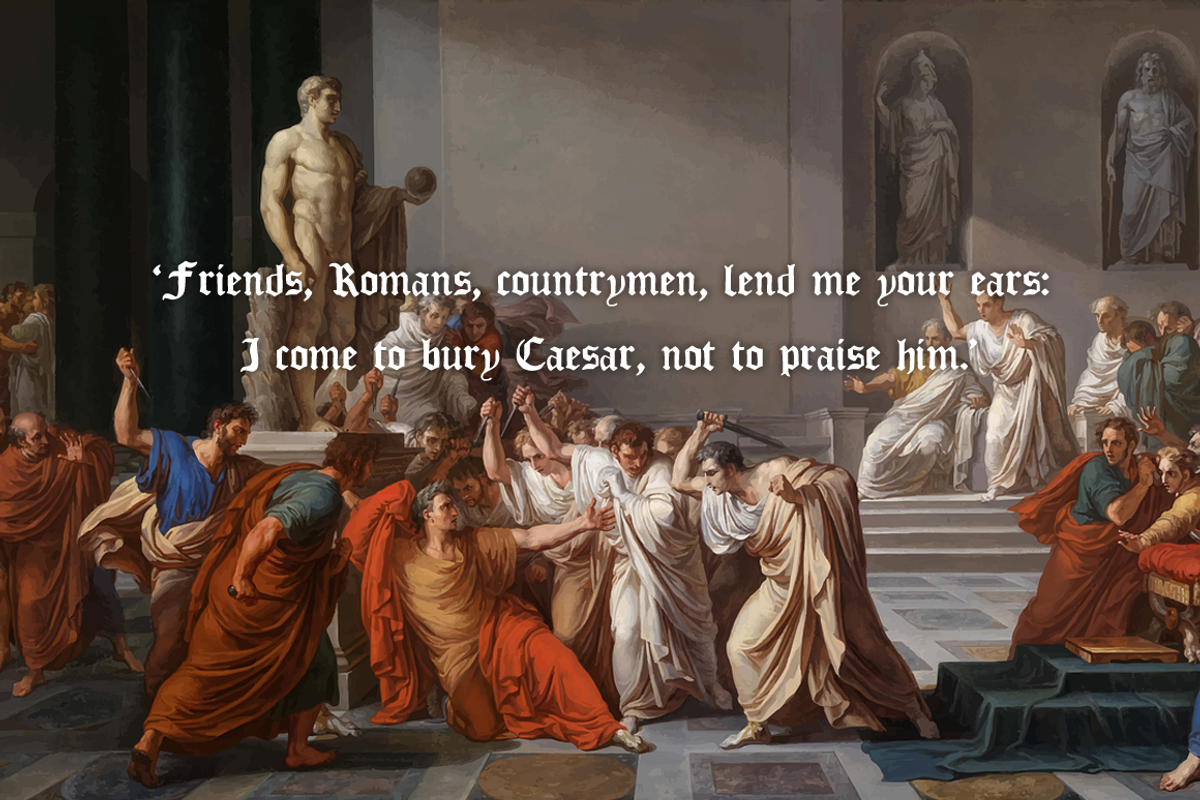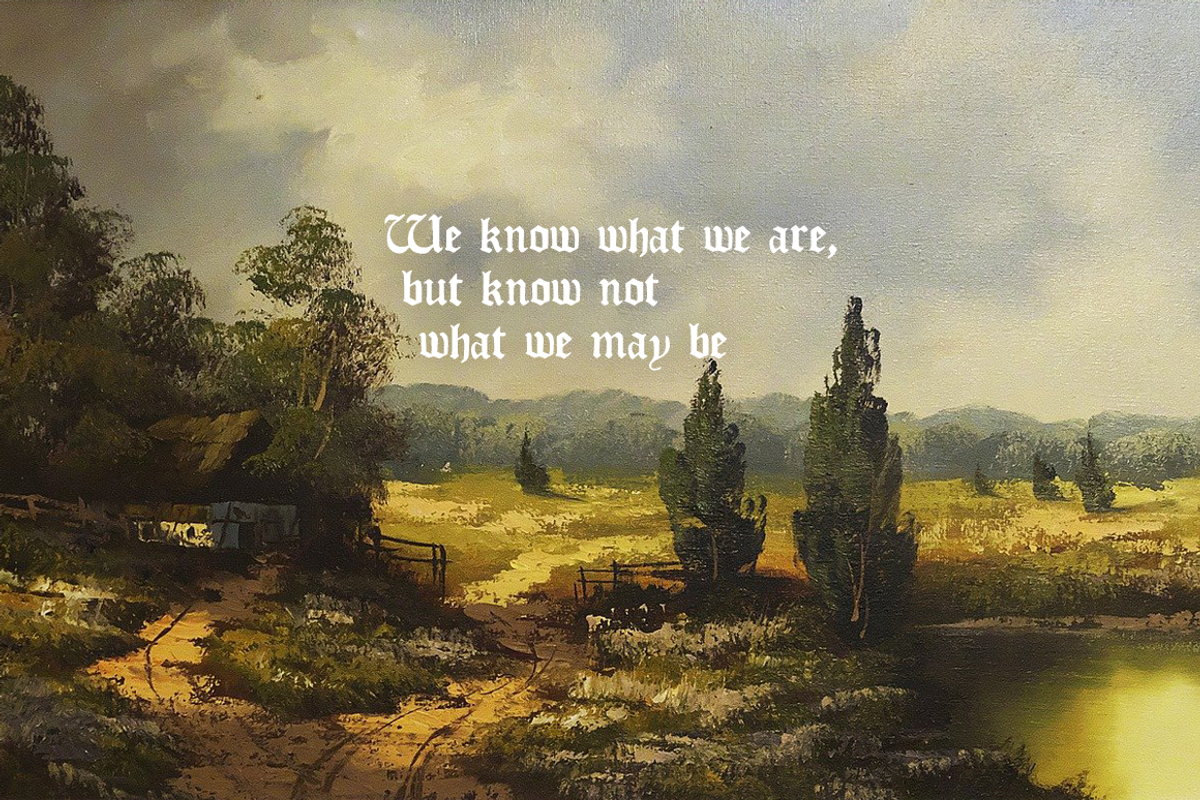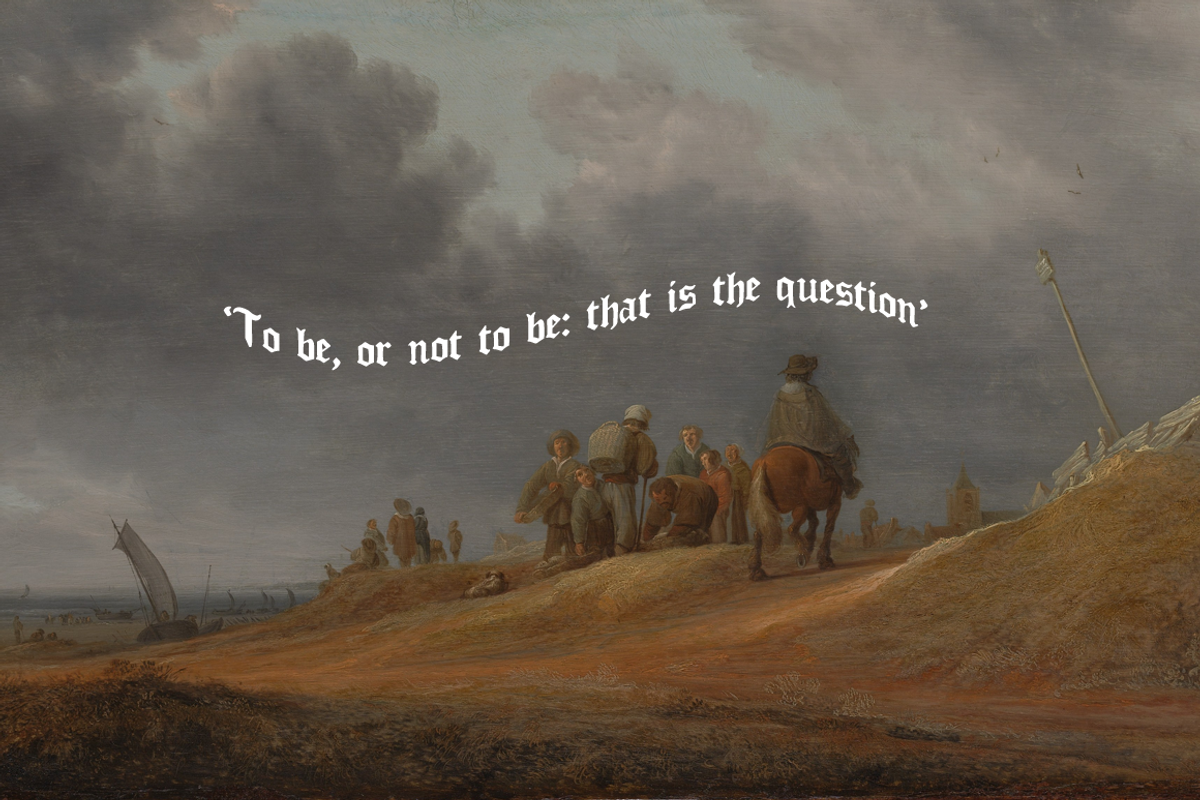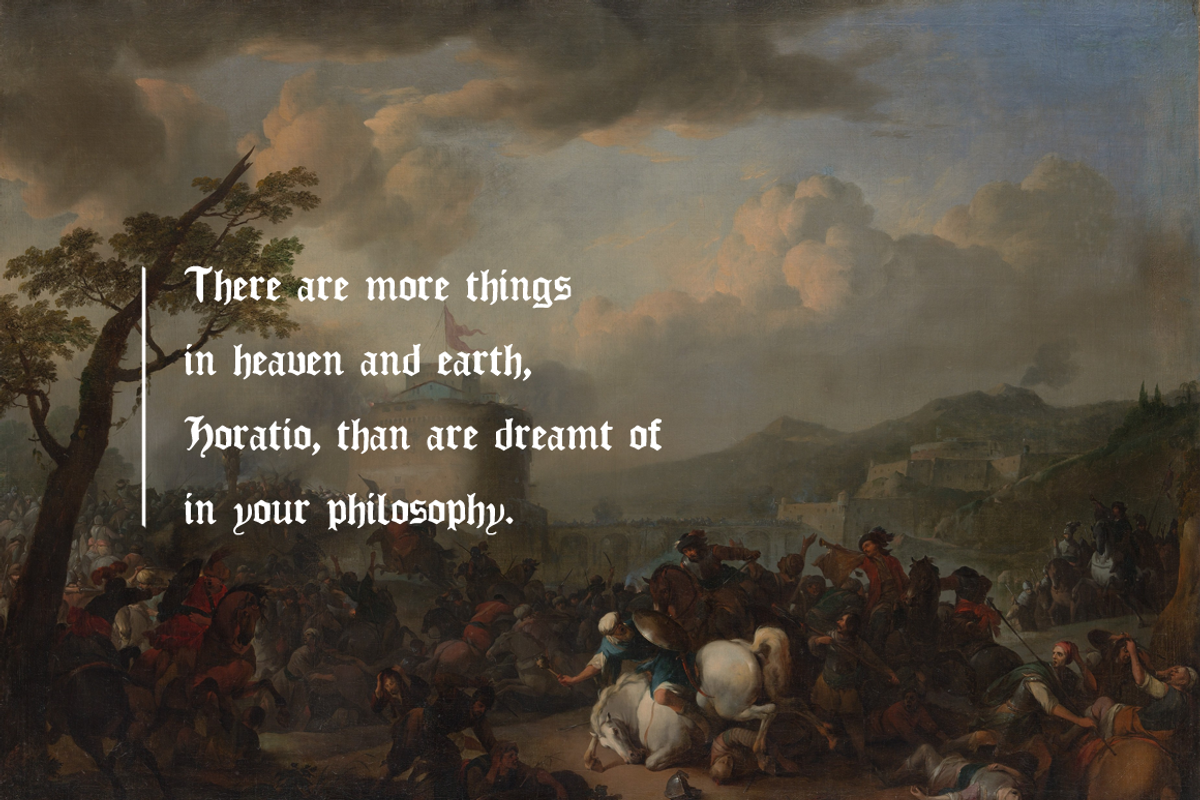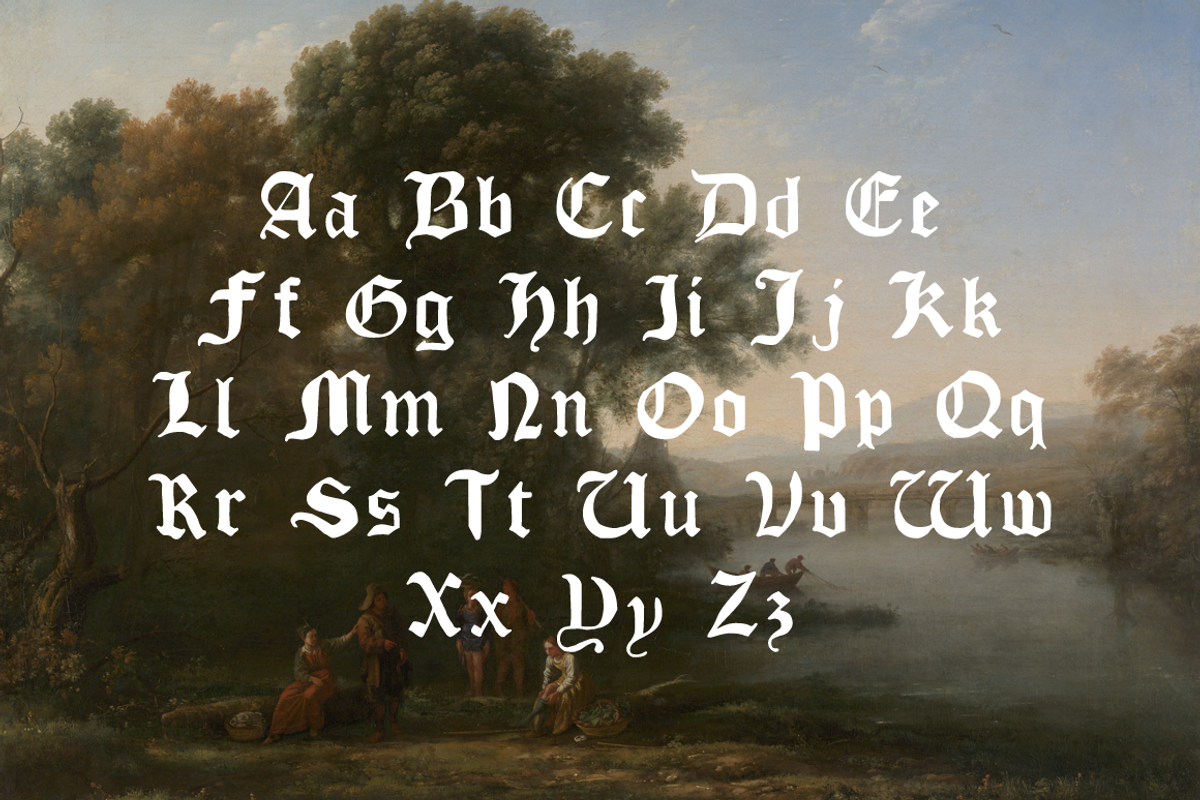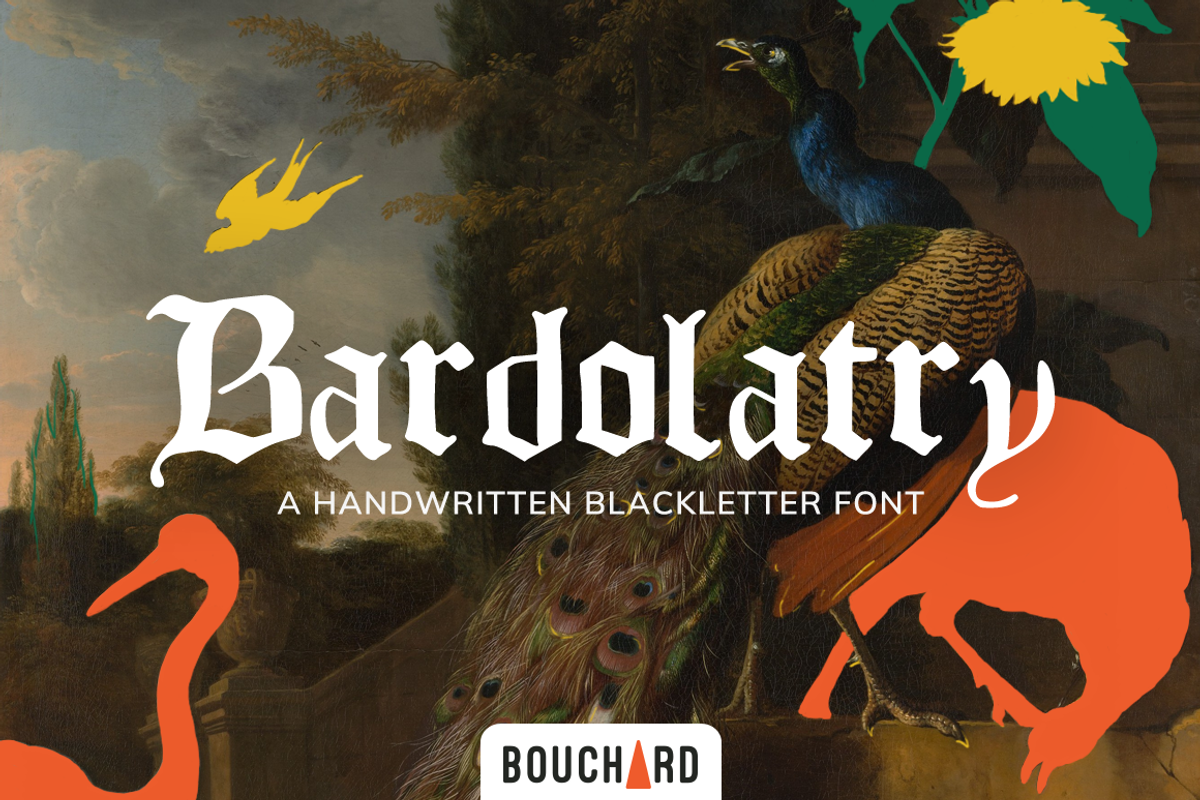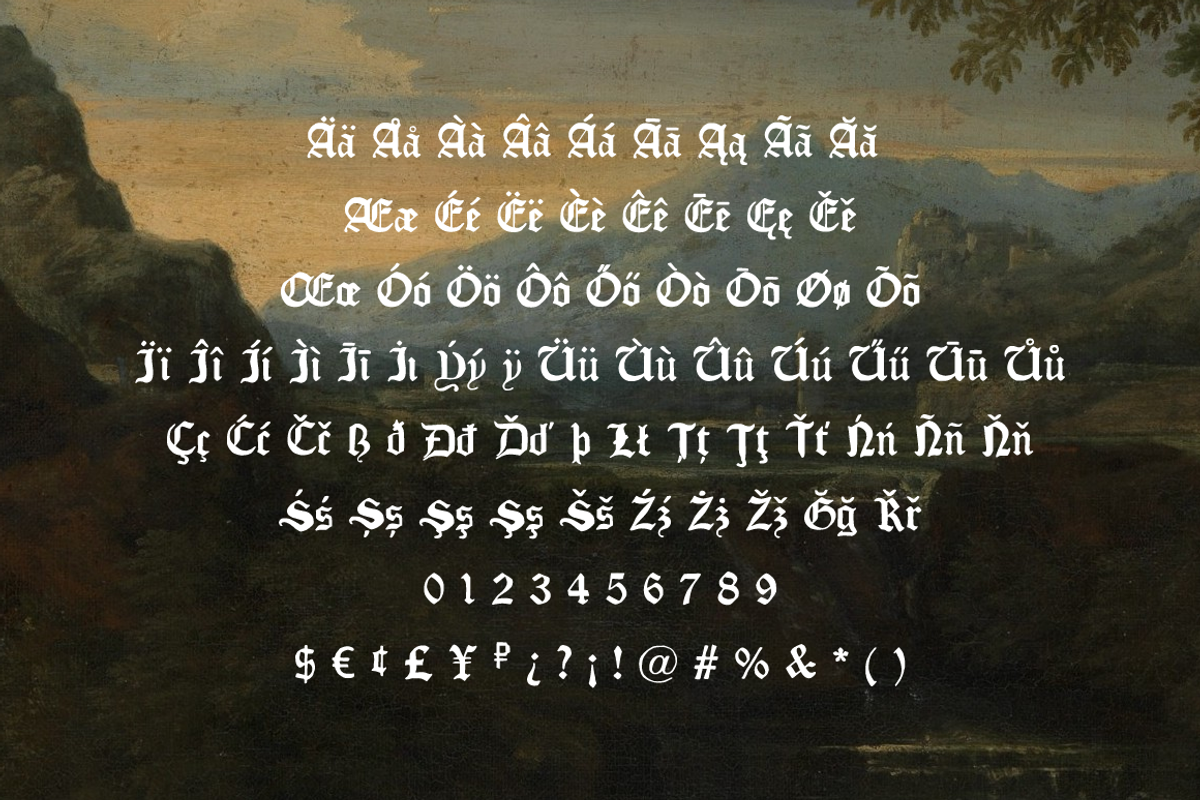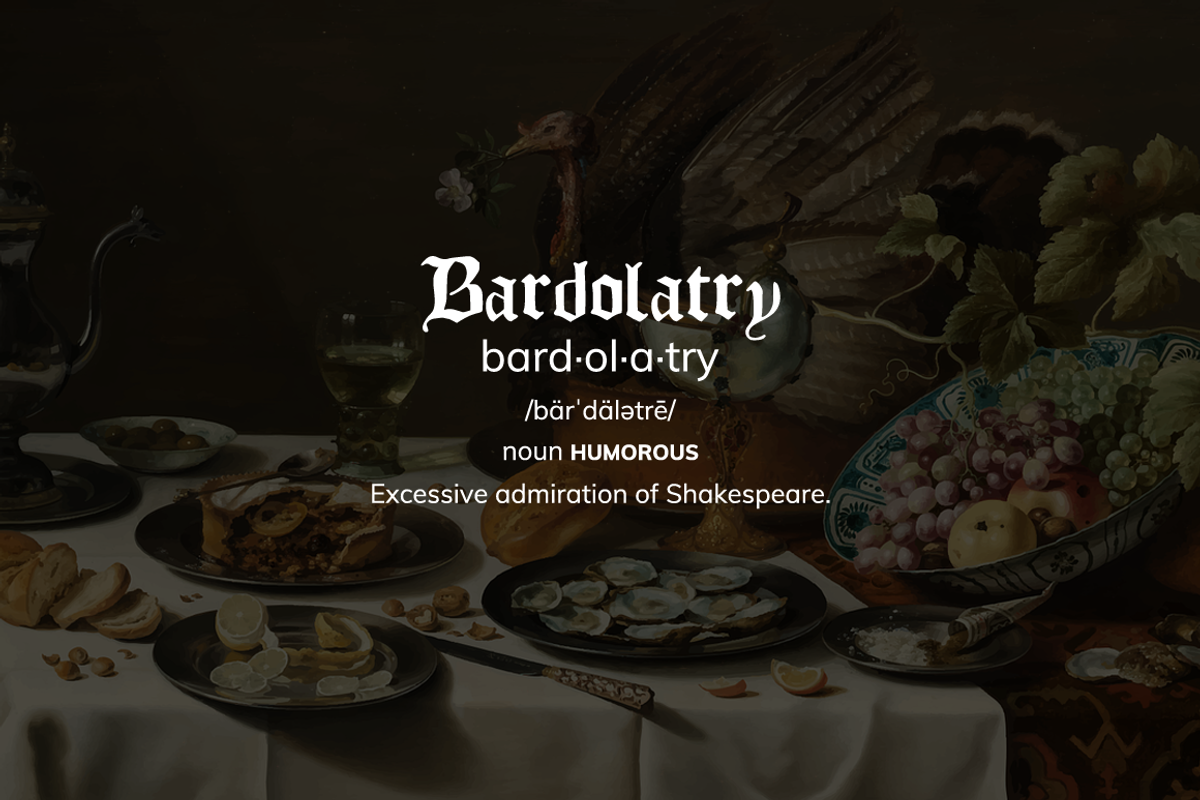
Bardolatry Handwritten Blackletter
Bardolatry is a handwritten display font that comes in uppercase and lower case and includes accents, numbers and punctuation.
Perfect for logo designs, packaging, book covers or any other designs that benefit from bold headings.